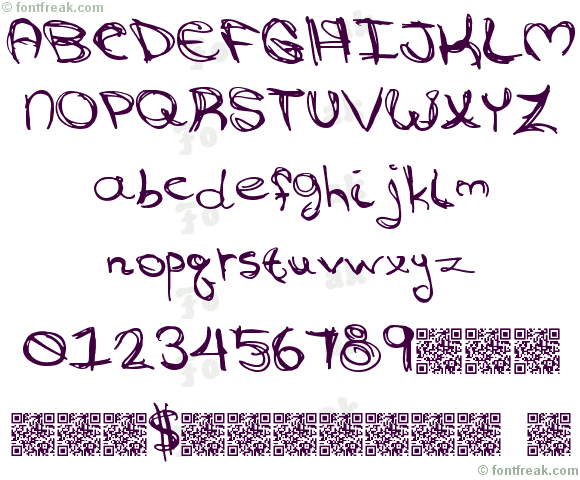
GoingAround
GoingAround, designed by XEROGRAPHER FONTS in 2013, is a whimsical handwritten font that captures a playful and lighthearted essence. This display font features irregular stroke weights, giving it a dynamic and organic feel. The letters exhibit a charming, bouncy quality, with varying heights and an informal spacing that enhances its casual appearance. The decorative elements, such as loops and swirls, add to its unique character, making it ideal for projects that require a personal touch.
The GoingAround font is particularly well-suited for a variety of creative applications. It shines in wedding invitations, where its charming style can evoke a sense of joy and celebration. Additionally, this font works wonderfully for children’s book covers, lending a fun and approachable vibe that appeals to young audiences. Restaurant menus can also benefit from its inviting nature, as it can help create a warm atmosphere for diners. Graphic designers may find it useful for crafting eye-catching posters and social media graphics, where a playful tone is essential. Small business owners can leverage GoingAround to develop distinctive branding materials that stand out in a crowded marketplace.
Targeting graphic designers, small business owners, and content creators, the GoingAround font offers versatility and creativity. Its freeware license makes it accessible for anyone looking to enhance their projects without breaking the bank. The font’s distinctive style, combined with its free download availability, makes it an attractive choice for those seeking to add a personal and artistic flair to their work. In a world filled with uniformity, the GoingAround font stands out by providing a refreshing and engaging option that reflects individuality and creativity.